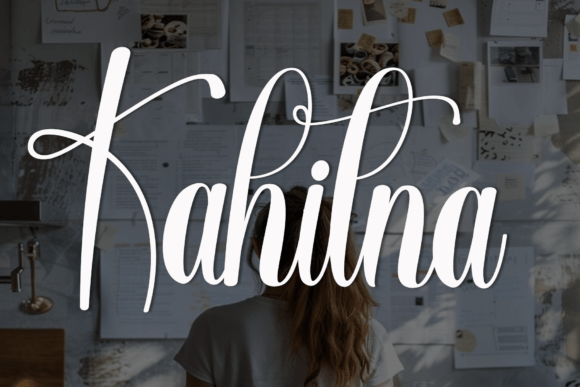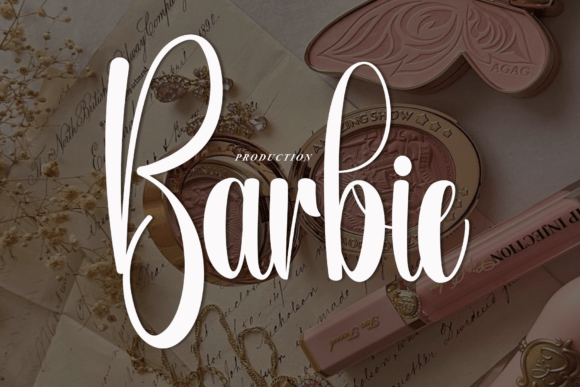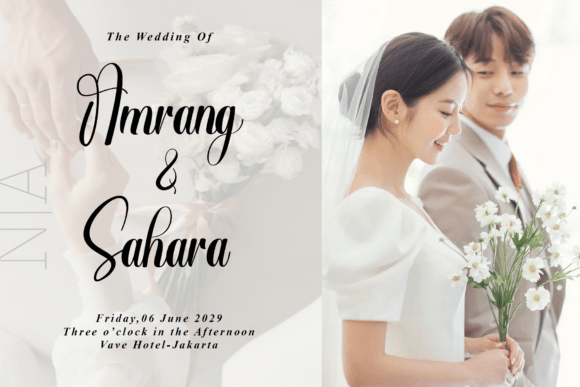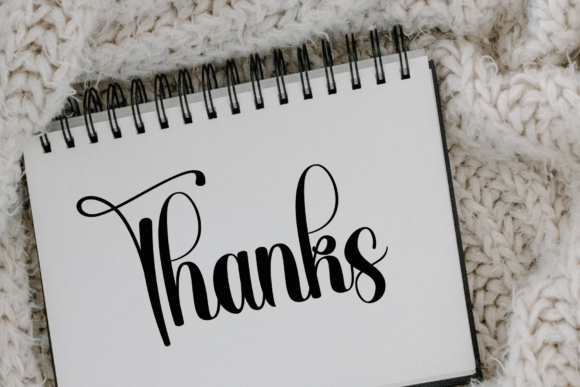
Introducing Beauty Ganger Font: Elevate Your Designs with Elegance
Are you on the hunt for a font that exudes sophistication, charm, and a touch of romance? Look no further than the Beauty Ganger Font. This beautifully flowing script font is designed to make your designs stand out, whether you’re working on wedding invitations, personal branding, elegant packaging, or romantic quotes.
The Beauty of Beauty Ganger Font
Beauty Ganger Font boasts smooth curves and a handwritten feel that instantly elevates any design. Its elegant strokes and flowing lines create a sense of luxury and refinement, making it perfect for designs that require a touch of sophistication. The font’s unique charm lies in its ability to convey emotion and personality, adding a human touch to your designs.
Perfect for Wedding Invitations and Personal Branding
Wedding invitations and personal branding are two areas where Beauty Ganger Font truly shines. The font’s romantic and elegant feel makes it an ideal choice for wedding invitations, setting the tone for a beautiful and memorable occasion. For personal branding, Beauty Ganger Font helps create a unique and sophisticated visual identity that reflects your personality and style.
Elegant Packaging and Romantic Quotes
Beyond wedding invitations and personal branding, Beauty Ganger Font is also perfect for elegant packaging and romantic quotes. Add a touch of luxury to your product packaging or create visually stunning social media graphics with romantic quotes that capture the essence of love and relationships.
Key Features of Beauty Ganger Font
• Smooth Curves: Beauty Ganger Font features smooth, flowing curves that create a sense of elegance and sophistication.
• Handwritten Feel: The font’s handwritten feel adds a personal touch to your designs, making them more relatable and engaging.
• Elegant Strokes: The font’s elegant strokes and lines create a sense of luxury and refinement, perfect for high-end designs.
• Versatile: Beauty Ganger Font is versatile and can be used for a variety of design projects, from wedding invitations to personal branding and packaging.
Tips for Using Beauty Ganger Font
To get the most out of Beauty Ganger Font, here are a few tips to keep in mind:
• Pair with Simple Fonts: Pair Beauty Ganger Font with simple, clean fonts to create visual contrast and make your designs stand out.
• Experiment with Colors: Experiment with different colors and textures to add depth and interest to your designs.
• Use for Headlines and Titles: Use Beauty Ganger Font for headlines and titles to create a bold and eye-catching statement.
In conclusion, Beauty Ganger Font is a beautifully flowing script font that radiates charm and sophistication. With its smooth curves, handwritten feel, and elegant strokes, it’s perfect for a variety of design projects, from wedding invitations and personal branding to elegant packaging and romantic quotes. Whether you’re a designer or crafter, Beauty Ganger Font is sure to elevate your designs and add a touch of luxury and refinement.